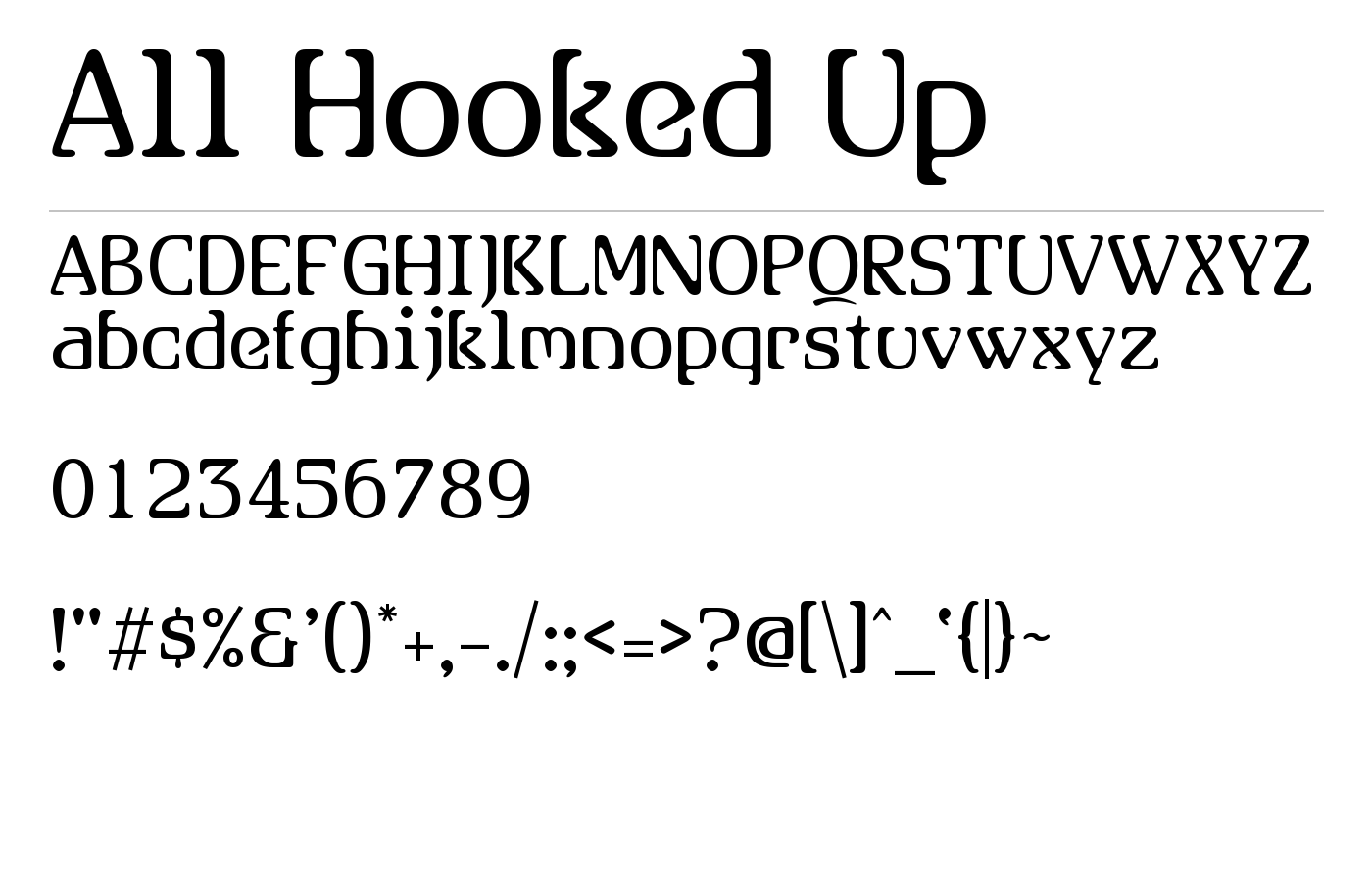
All Hooked Up is a distinctive serif font featuring playful, hook-like terminals that add a quirky and artistic touch to its classic structure. With moderate contrast and a balanced x-height, it maintains readability while showcasing unique letterforms that bring personality and charm. This font works well for creative branding, editorial headlines, and projects seeking a blend of vintage elegance and whimsical style.
All Hooked Up Font
About All Hooked Up Font
| Designer | Darren Rigby |